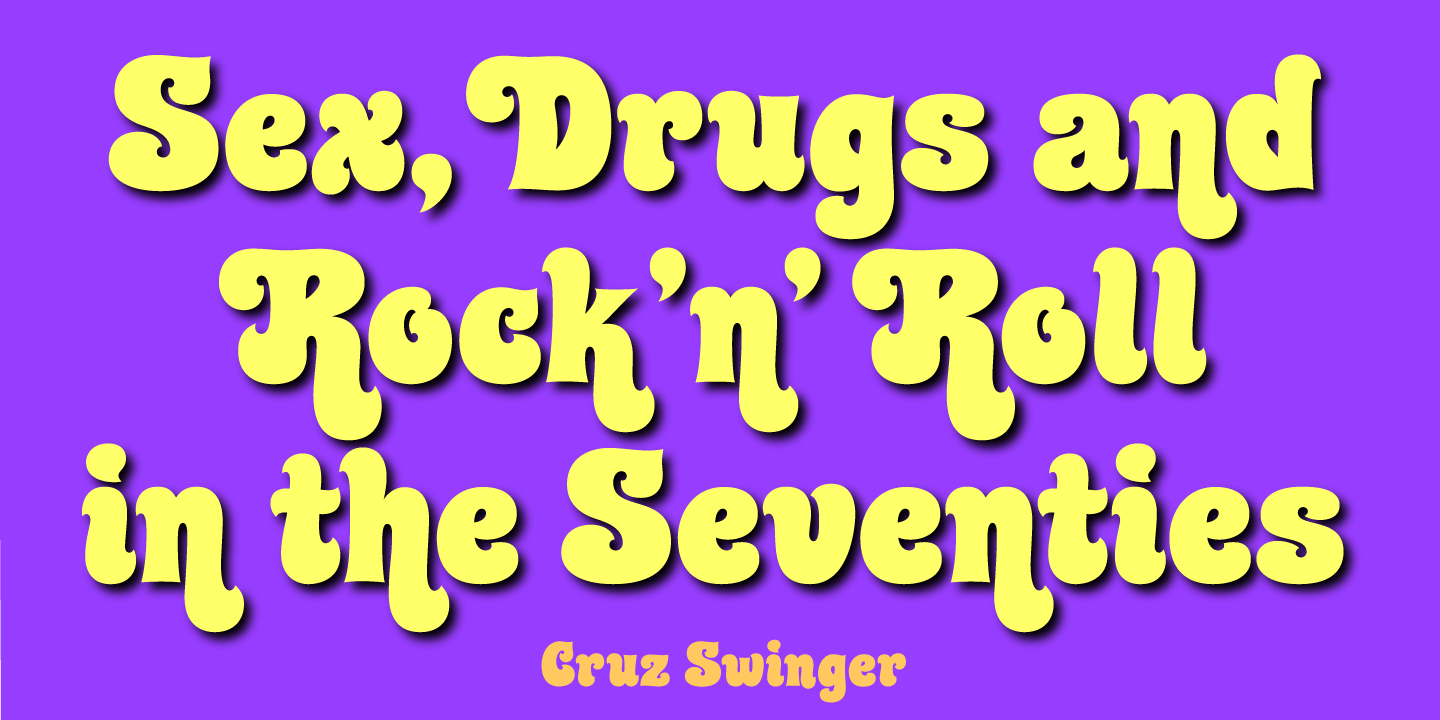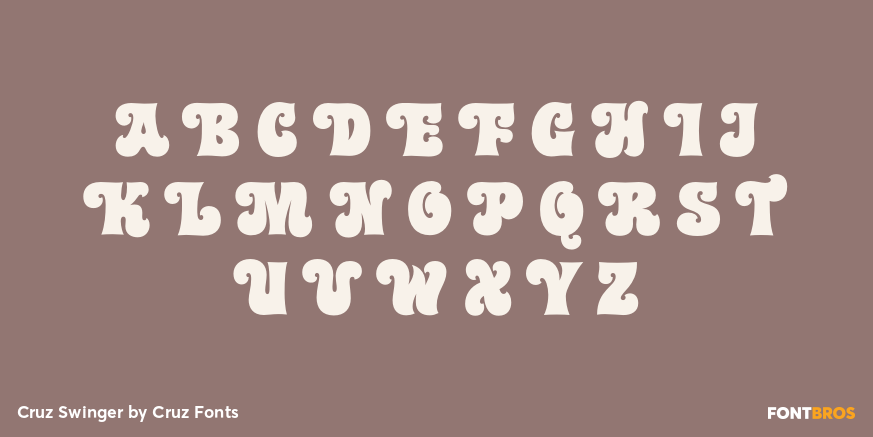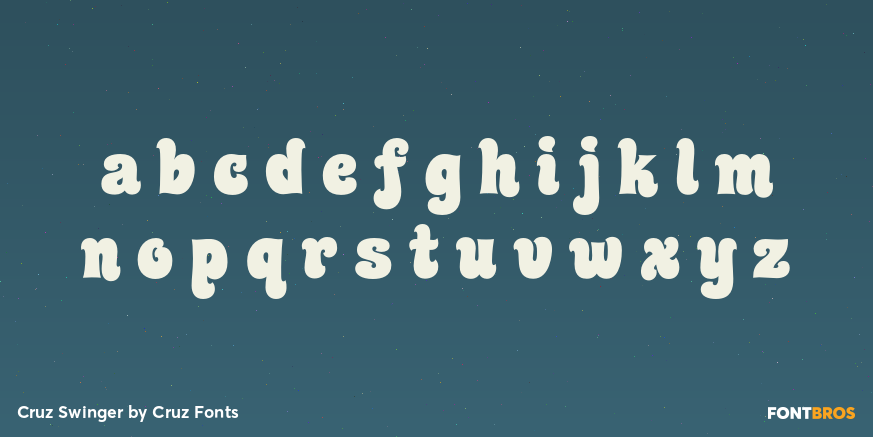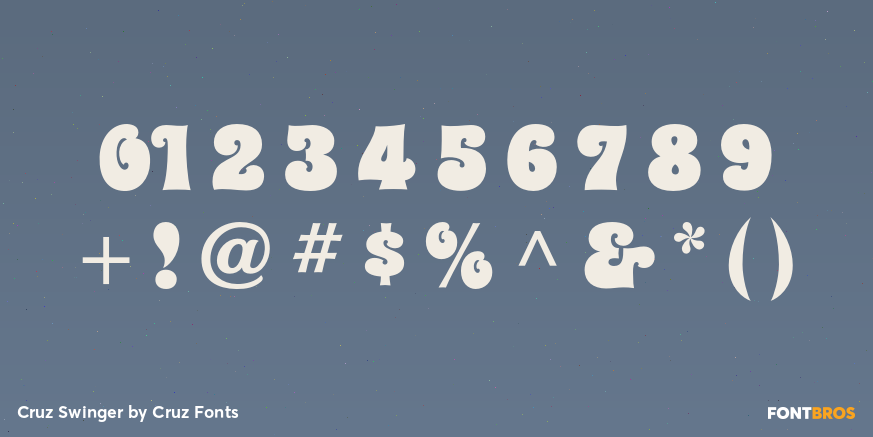
Cruz Swinger
Font Family by Cruz Fonts
Cruz Swinger is a single-style display font from Cruz Fonts with a distinctly groovy, retro attitude. Its look points clearly to late-1960s and 1970s-inspired design, giving layouts an easygoing, swinging feel that reads as playful, bold, and full of vintage character.
This is a strong choice for designers looking to bring period flavor to posters, branding, packaging, apparel graphics, or other decorative display work. With its expressive personality and throwback tone, it fits especially well anywhere you want a 1960s or 1970s mood without losing visual impact.